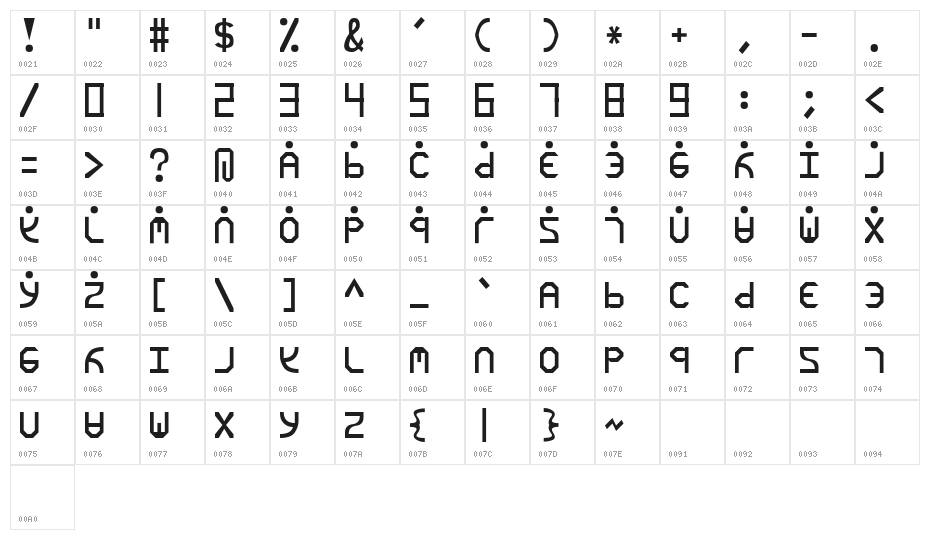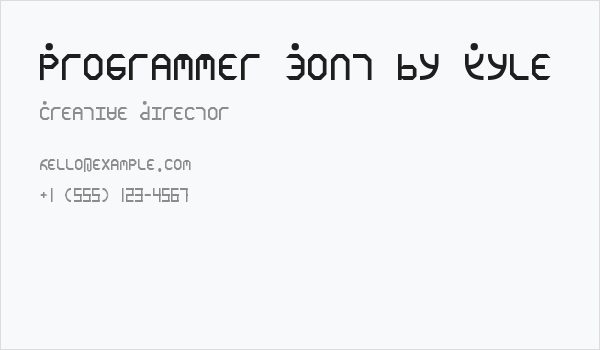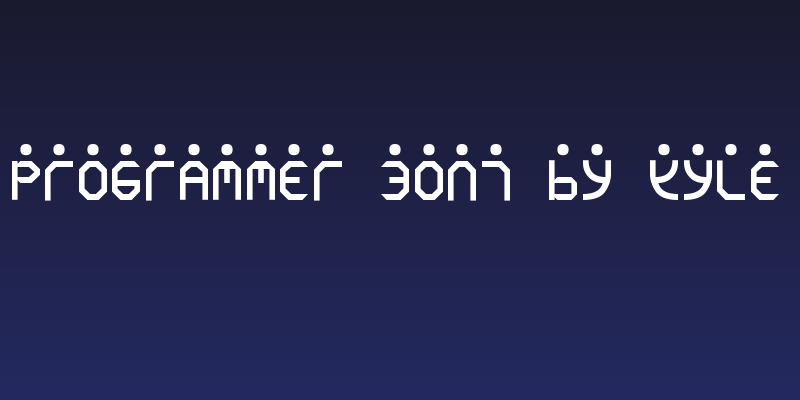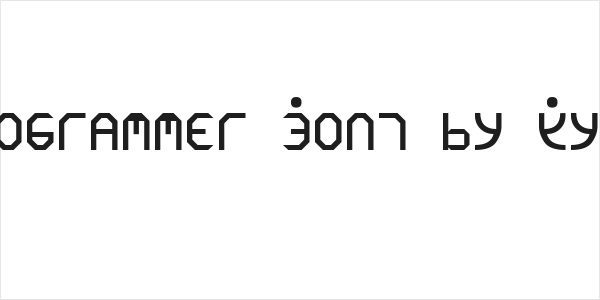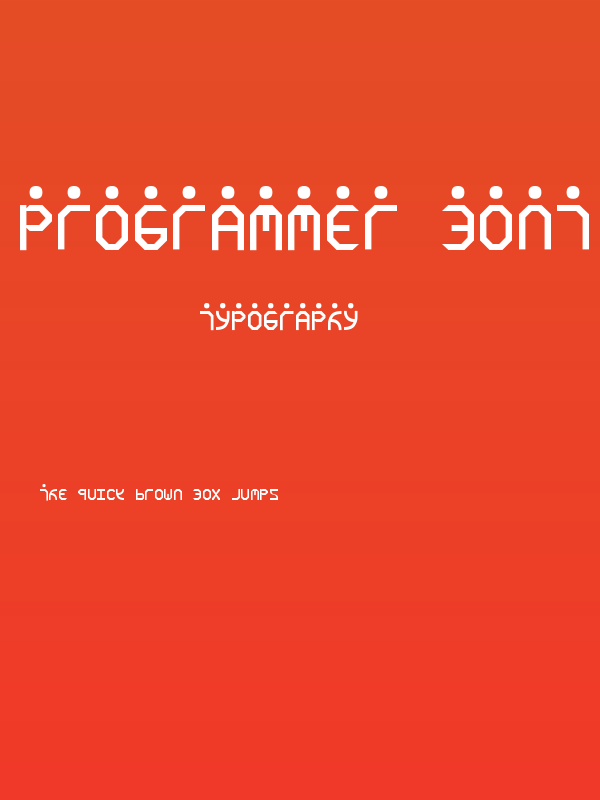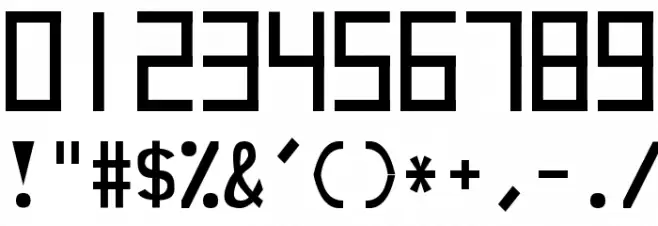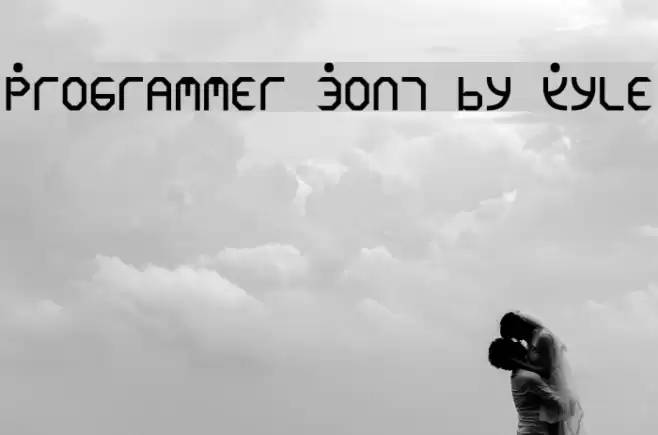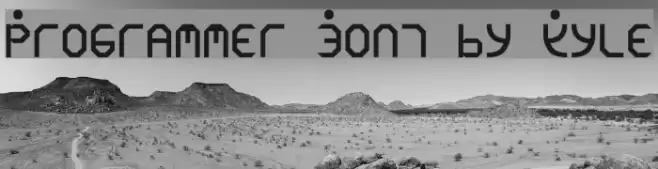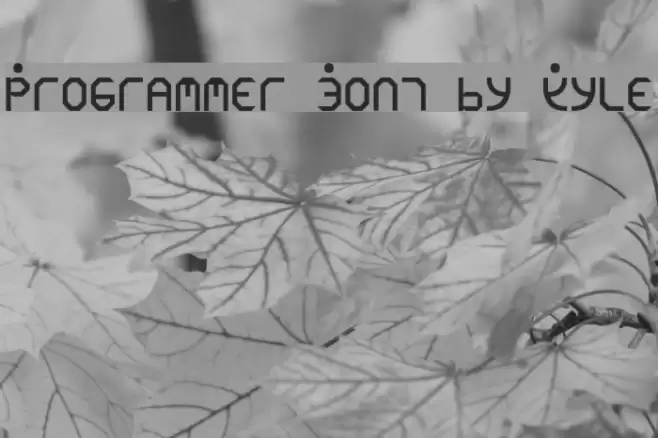
Programmer Font by Kyle Font
Programmer Font by Kyle Description
This font features a unique, futuristic design with geometric shapes and sharp angles. Each character is crafted with a distinct, modern aesthetic that incorporates circular dots above the uppercase letters, adding a playful yet sophisticated touch. The font maintains a consistent stroke width, contributing to its bold and striking appearance. The characters are well-defined and easily distinguishable, making it suitable for digital and print media. Its unconventional style is eye-catching and memorable, perfect for projects that require a modern and innovative look.
| Proposed Projects | Ideal for tech branding, sci-fi themed projects, digital art, and modern advertising. |